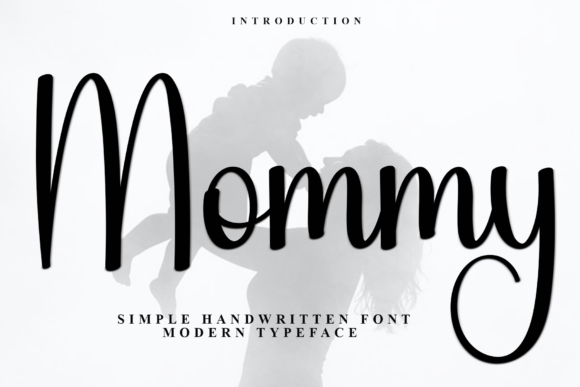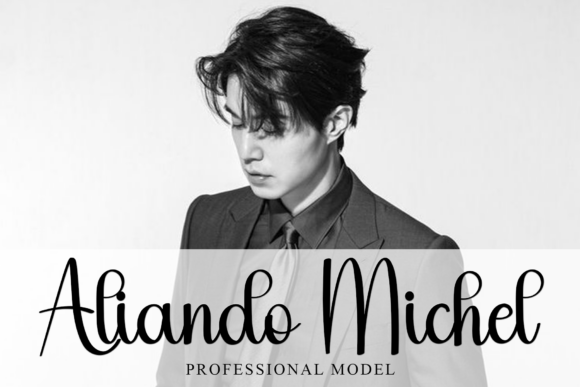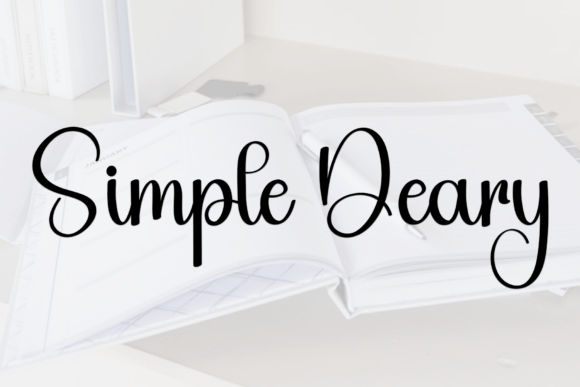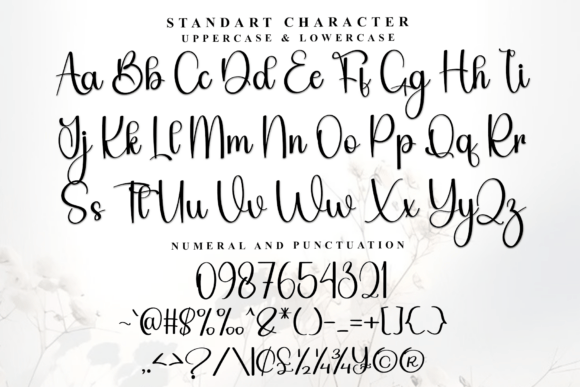
Mommy Font
About the Mommy Font
Step up your design game with Mommy Font, a font that exudes confidence and style. Mommy is a festive and merry typeface that captures the spirit of the holiday season. With its decorative elements and whimsical flair, it adds a touch of enchantment to your designs. Perfect for greeting cards, gift tags, and holiday-themed projects, this font brings a cheerful and nostalgic ambiance to your words. Let your typography shine with the magic of Beautiful Font!
Mommy Font’s playful, decorative style is ideal for headlines, short bursts of text on packaging, and festive branding projects where a whimsical feel is desired. It works exceptionally well for invitations, greeting cards, and children’s books. However, its decorative nature makes it unsuitable for body text or UI elements where readability is paramount; long paragraphs set in Mommy Font would be difficult to read.
For effective pairings, consider contrasting Mommy Font with a clean sans-serif like Open Sans for body copy, or a classic serif like Garamond for a more sophisticated feel. A simple geometric sans-serif like Futura could also provide a modern counterpoint to the font’s ornate details.
Overall, Mommy Font projects a cheerful, nostalgic, and slightly quirky personality, best suited for brands and projects aiming for a lighthearted and festive aesthetic.
Mommy Font Usage Examples
Mommy Font Example